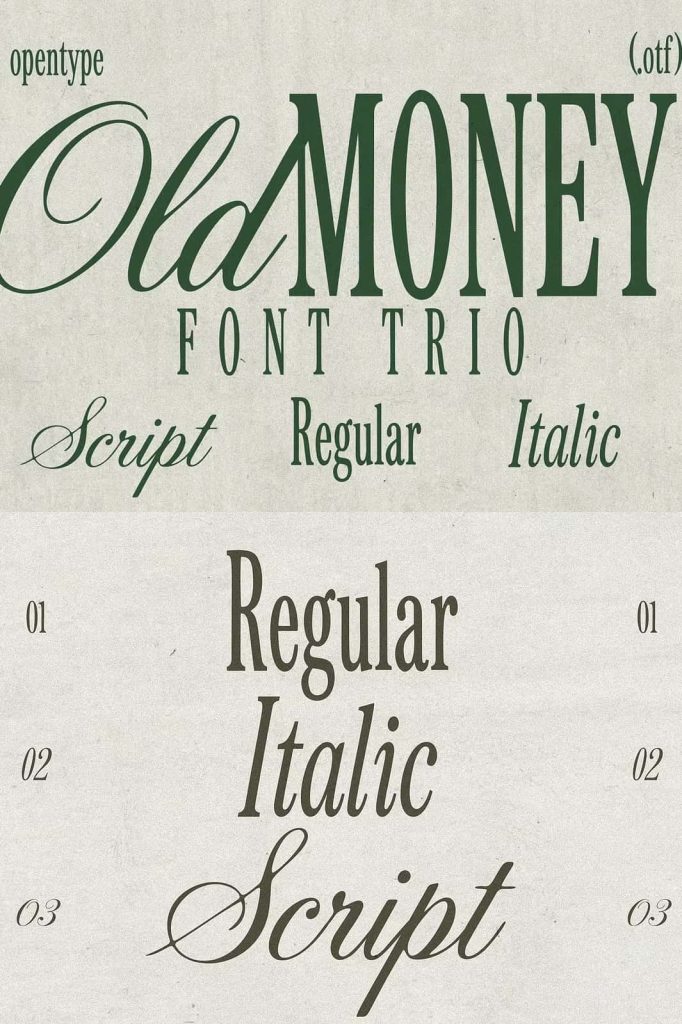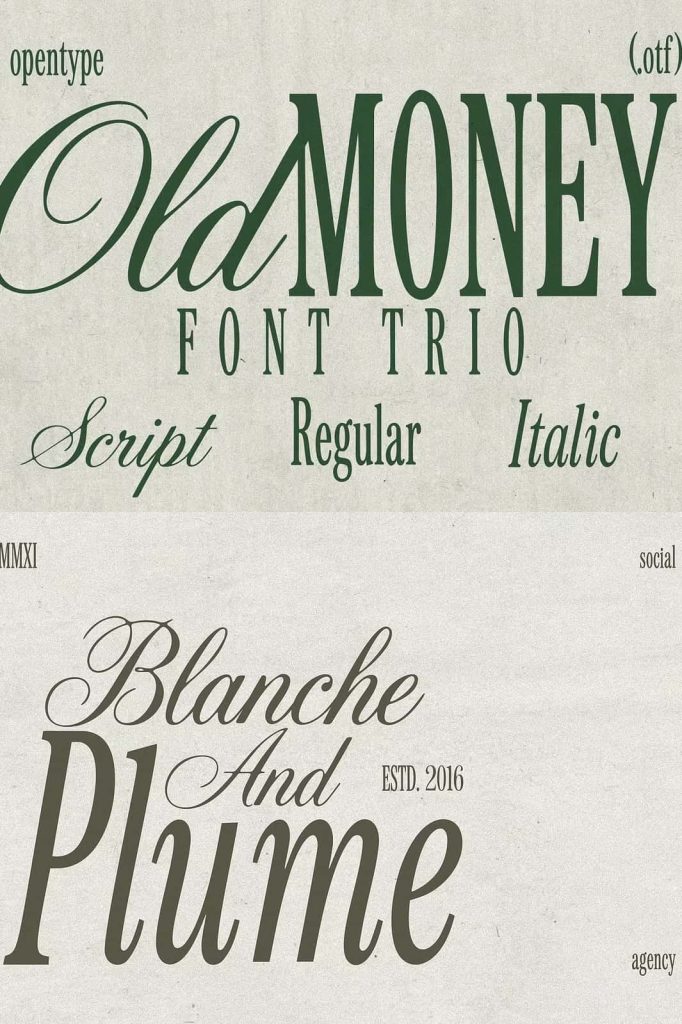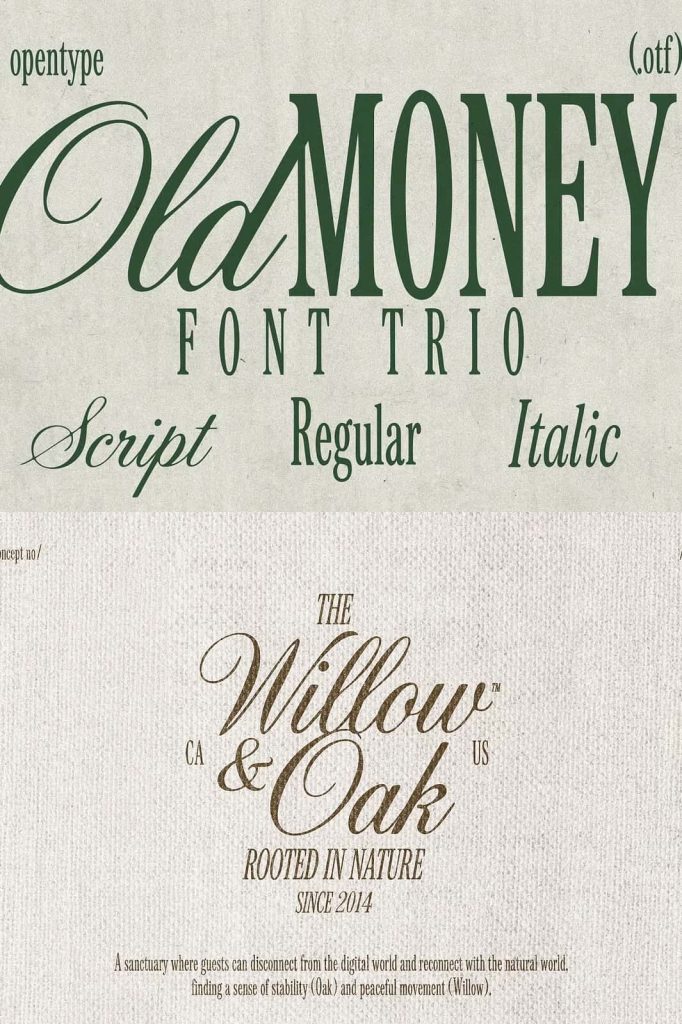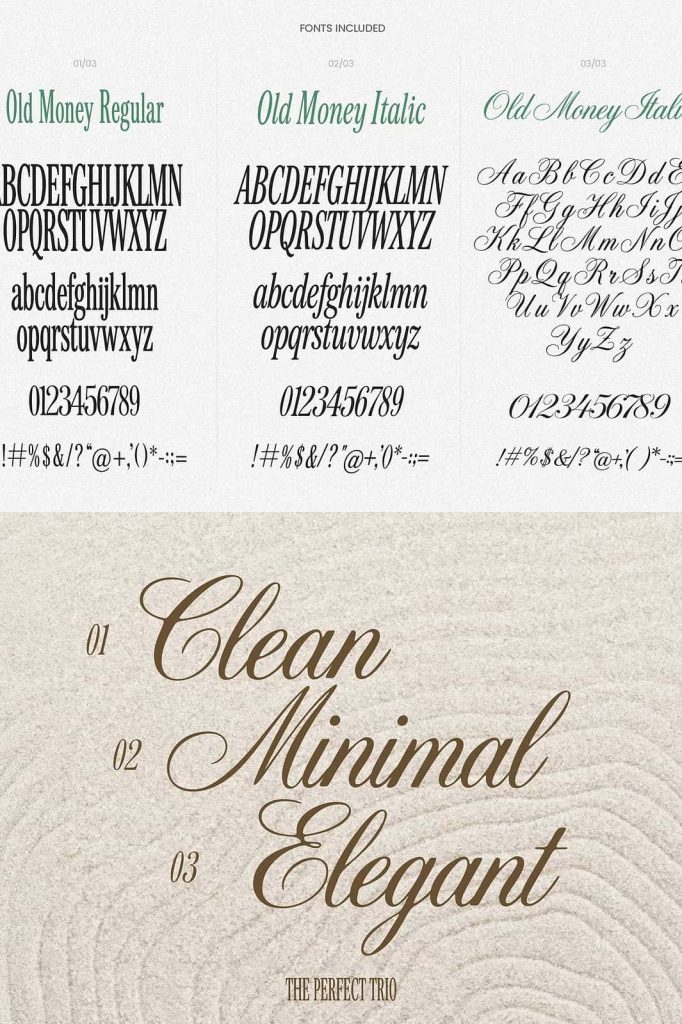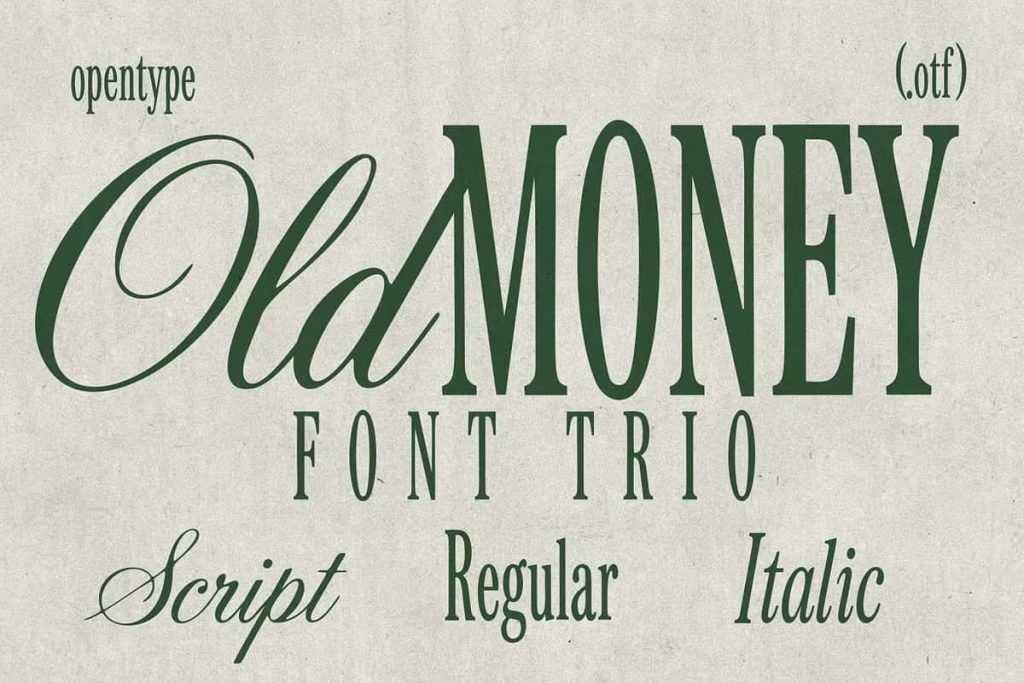
Old Money Font Trio for Timeless Luxury Branding and Elegant Editorial Design
Old Money Font Trio is a refined collection of premium typefaces created to embody the understated elegance of heritage, prestige, and classic sophistication. Inspired by the timeless aesthetic of old-world wealth, exclusive country clubs, Ivy League traditions, and luxury editorial publications, this versatile font trio captures the essence of what is often called “quiet luxury.” Rather than relying on flashy details or excessive decoration, these fonts communicate confidence, refinement, and enduring style through balanced letterforms and impeccable craftsmanship.
Whether you’re building an elegant brand identity, designing luxury product packaging, creating sophisticated wedding stationery, or producing editorial layouts with a premium feel, Old Money Font Trio offers everything you need to achieve a polished and distinguished appearance. The three complementary fonts work beautifully together, giving designers complete creative flexibility while maintaining a cohesive and timeless visual identity.
Inspired by the Quiet Luxury Aesthetic
Quiet luxury has become one of the most influential design movements in modern branding. Instead of emphasizing bold trends or extravagant visual elements, it focuses on timeless quality, subtle elegance, and exceptional craftsmanship. Old Money Font Trio embraces these principles by offering typography that feels established, confident, and effortlessly luxurious.
The collection draws inspiration from historic universities, classic literature, upscale fashion houses, heritage hotels, private clubs, and vintage editorial publications. Every character reflects the balance between tradition and contemporary refinement, making the fonts suitable for projects that require lasting visual appeal rather than temporary trends.
A Complete Font Trio for Professional Design
Old Money Font Trio includes three carefully coordinated typefaces that complement one another across a wide variety of creative projects. Each font has its own personality while sharing a unified design philosophy, allowing designers to build sophisticated typography systems with ease.
Use one font for elegant headlines, another for refined subheadings, and the third for supporting typography or decorative accents. This thoughtful combination helps establish strong visual hierarchy while maintaining consistency throughout branding, editorial layouts, packaging, and marketing materials.
Key Features
- Complete collection of three premium fonts
- Inspired by the timeless quiet luxury aesthetic
- Elegant blend of vintage collegiate and editorial design
- Perfectly coordinated typefaces for consistent branding
- Ideal for luxury logos, packaging, invitations, and magazines
- Professional typography with timeless appeal
- Suitable for print and digital design projects
- Excellent readability with refined visual balance
Create Sophisticated Luxury Branding
Typography is one of the strongest visual elements in any luxury brand, and Old Money Font Trio delivers the refined personality needed to establish credibility and prestige. The collection communicates exclusivity without appearing excessive, making it ideal for brands that value heritage, craftsmanship, and understated elegance.
This font trio works exceptionally well for fashion labels, jewelry brands, beauty products, luxury hotels, boutique retailers, interior design studios, financial firms, wineries, premium real estate companies, and lifestyle brands seeking a timeless identity. The classic letterforms help create logos and visual systems that remain relevant for years to come.
Perfect for Wedding Stationery and Special Events
Elegant typography plays an essential role in creating memorable wedding stationery, and Old Money Font Trio provides the sophistication needed for premium invitations and event materials. The refined letterforms complement traditional and modern wedding themes alike, bringing grace and balance to every design.
Use the fonts for save-the-date cards, invitation suites, RSVP cards, menus, seating charts, thank-you notes, event signage, and ceremony programs. The timeless style enhances every detail while creating keepsakes that feel luxurious and meaningful.
Ideal for Editorial Design and Publishing
Editorial typography requires clarity, elegance, and visual hierarchy. Old Money Font Trio excels in magazine covers, fashion editorials, coffee table books, annual reports, brochures, and premium publications. The combination of vintage collegiate influence and modern editorial refinement creates layouts that feel both authoritative and visually engaging.
Whether designing feature articles, chapter titles, pull quotes, or promotional publications, the font trio helps establish a polished reading experience that reflects professionalism and high-quality design.
Elevate Packaging with Heritage-Inspired Typography
Luxury packaging depends on typography that immediately communicates quality and exclusivity. Old Money Font Trio adds a refined finishing touch to product labels, perfume boxes, wine bottles, gourmet food packaging, skincare collections, candles, artisan goods, and premium gift sets.
From elegant logos and refined editorial layouts to luxury product packaging and classic wedding invitations, Old Money Font Trio helps every design communicate confidence, craftsmanship, and enduring style. If you’re looking for typography that captures the essence of quiet luxury while remaining versatile enough for modern creative work, Old Money Font Trio is an outstanding addition to your design library.